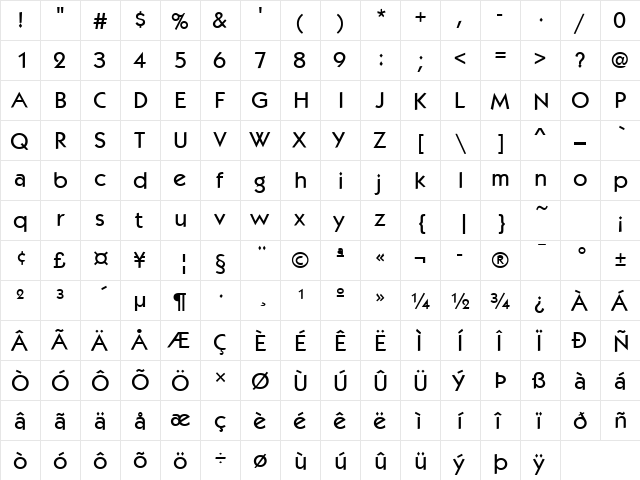
Koch Bold Font Preview
Koch Bold
Design Context for Koch Typeface
Koch takes a measured approach to typography — its balanced proportions and neutral character make it a reliable workhorse for both digital and print work. The heavy weight commands attention and anchors typographic hierarchies.